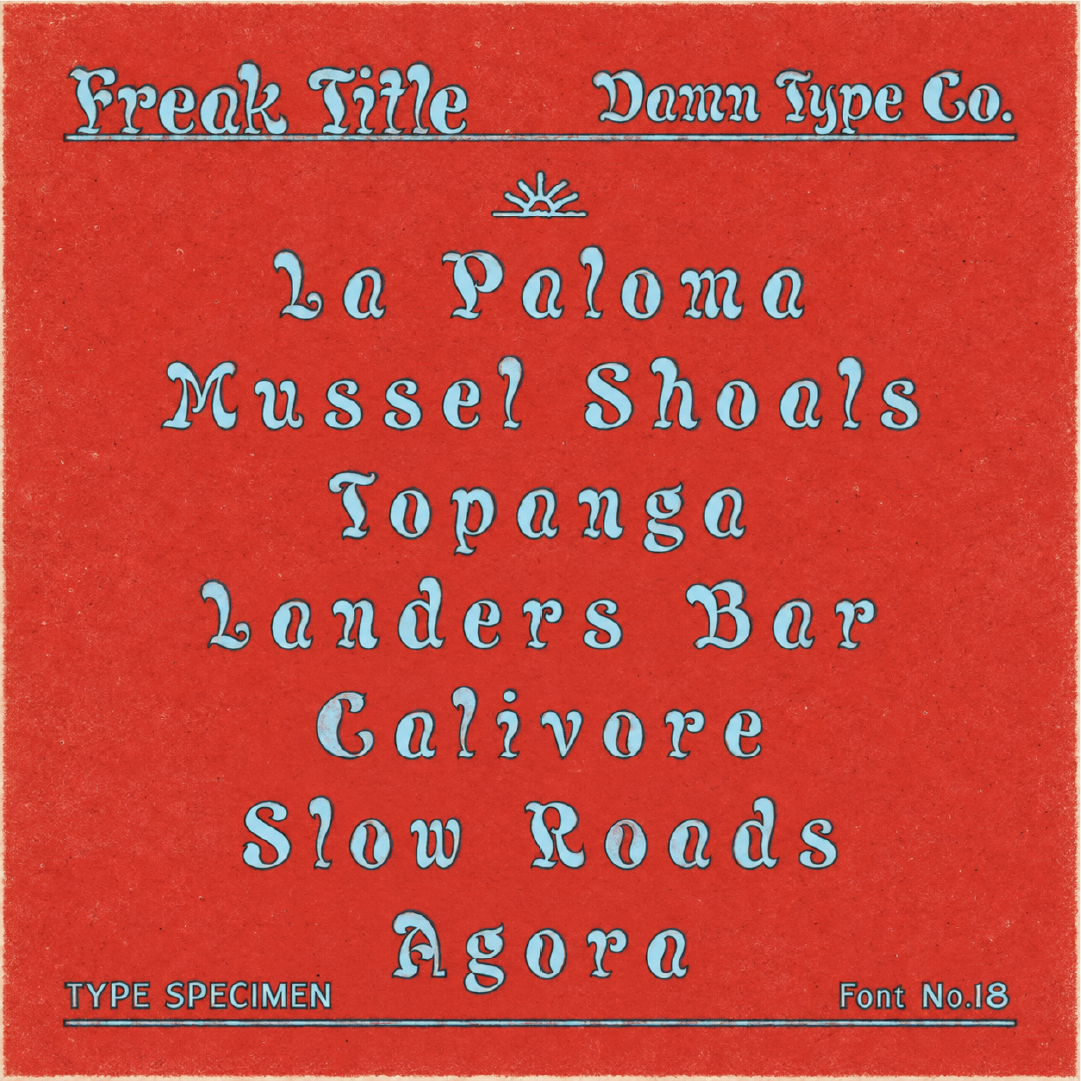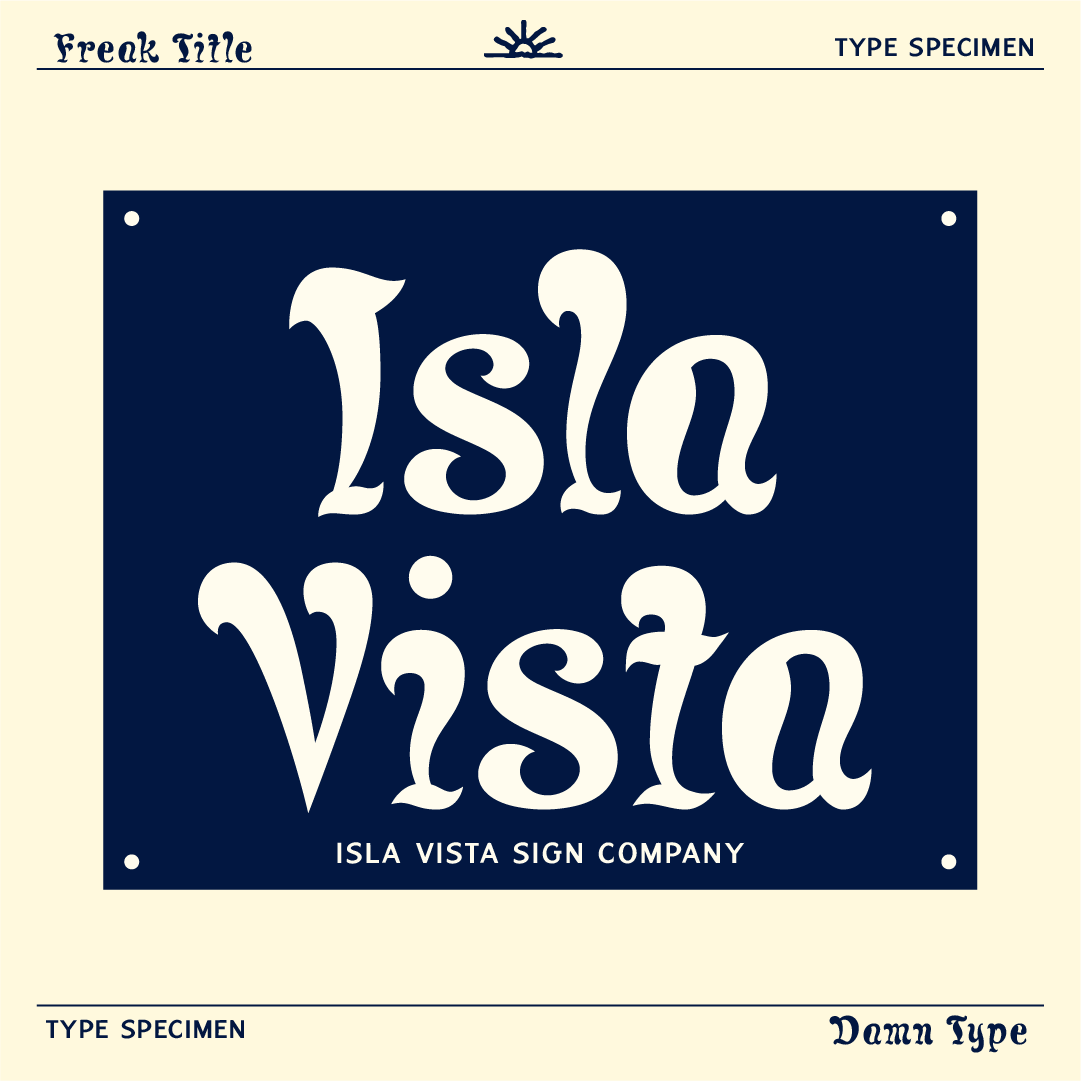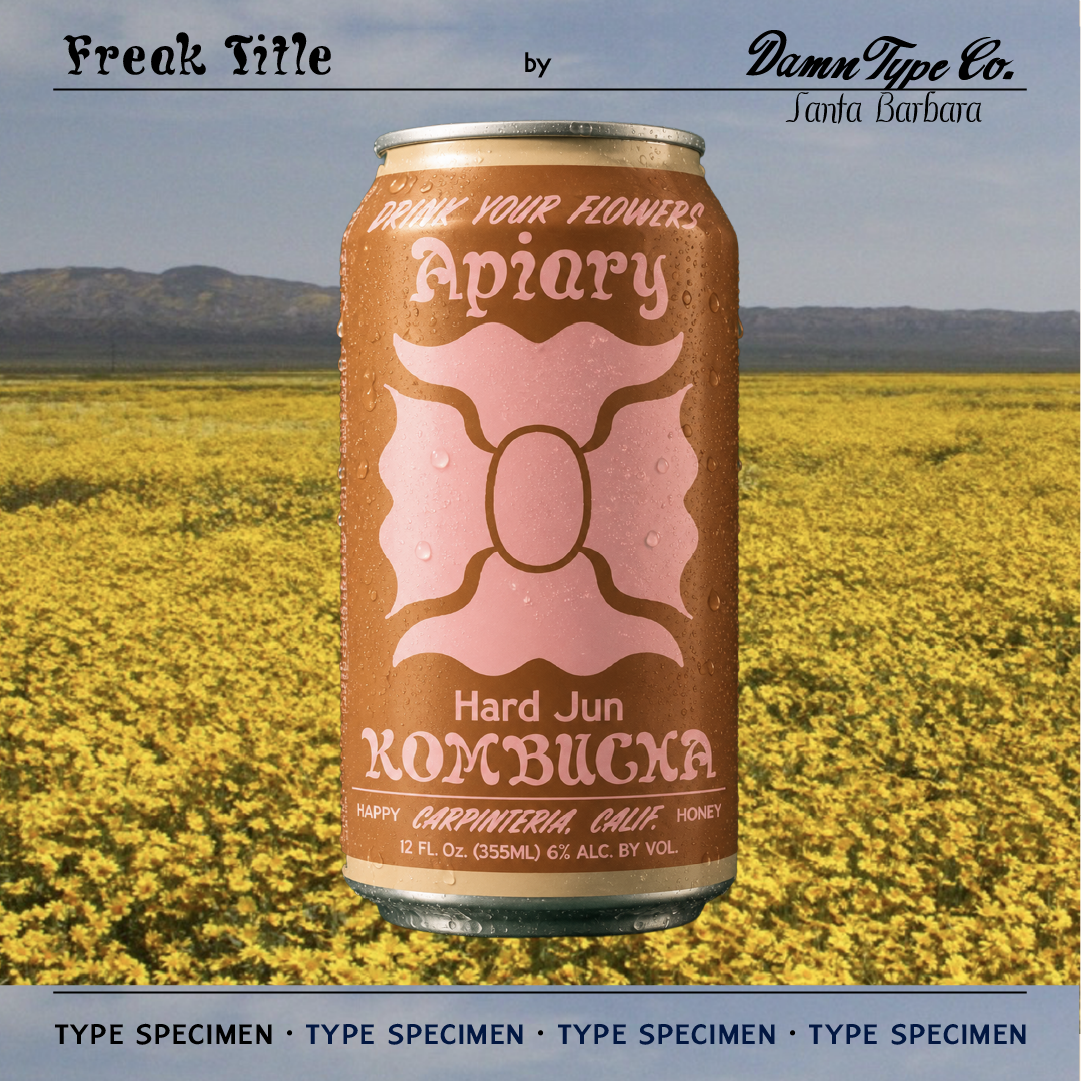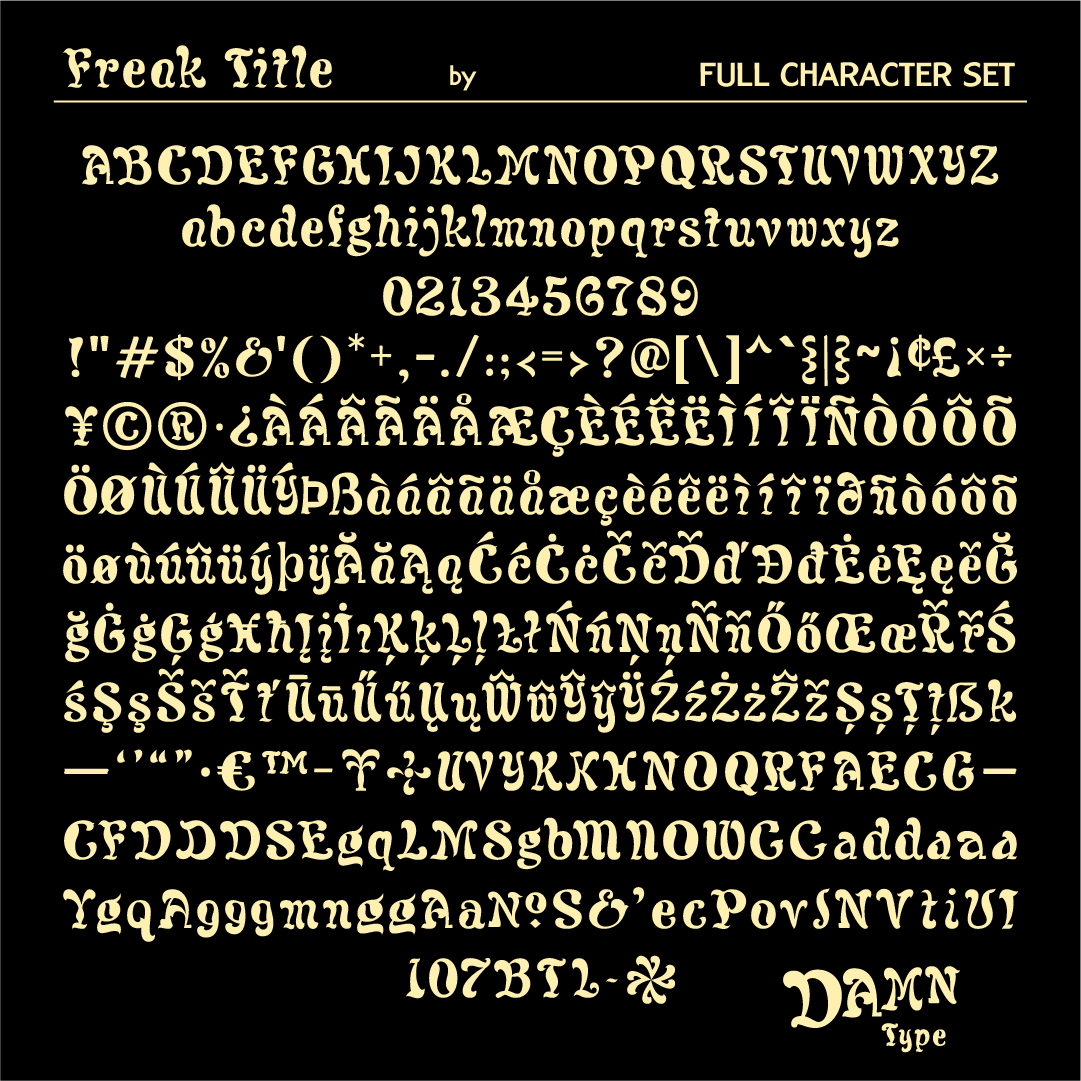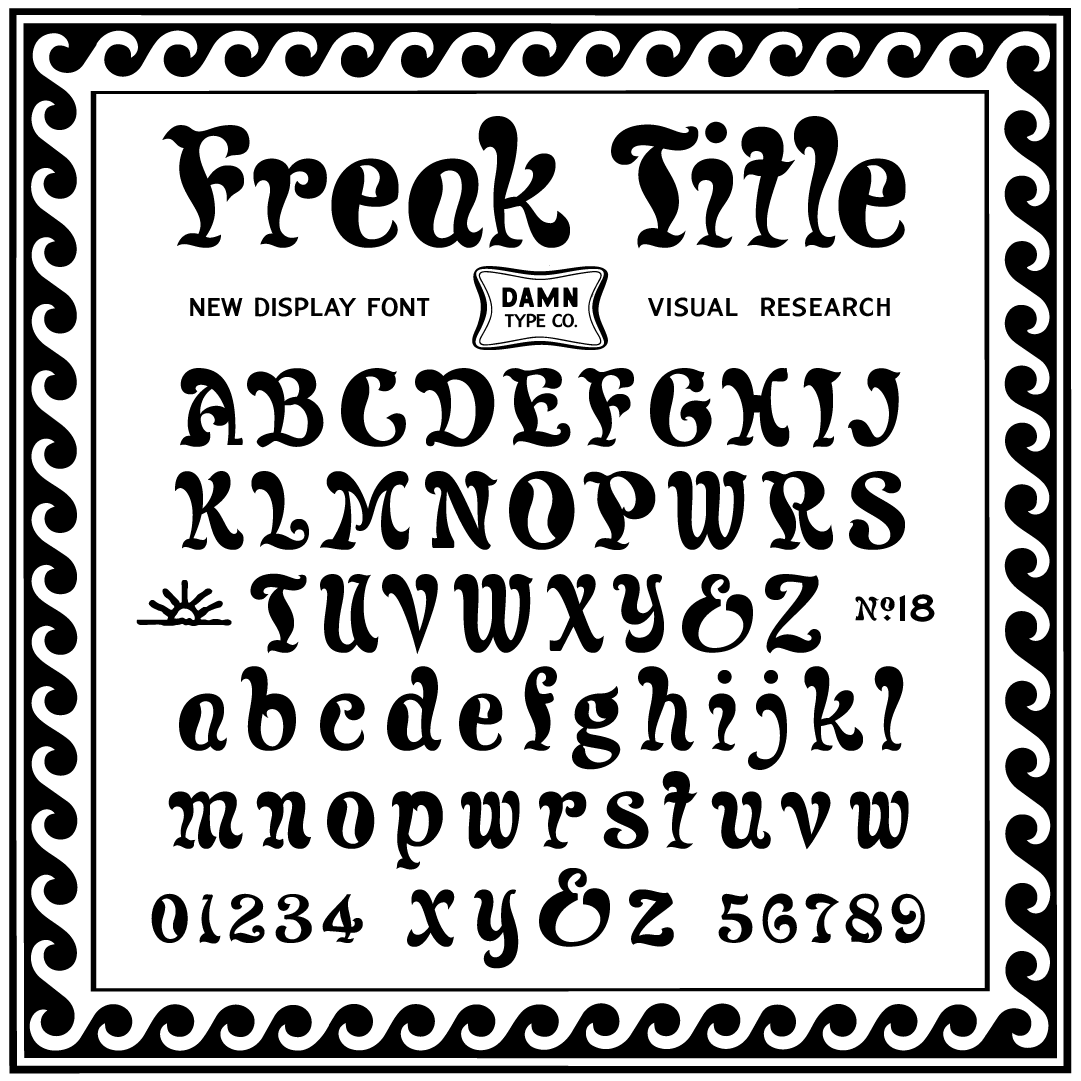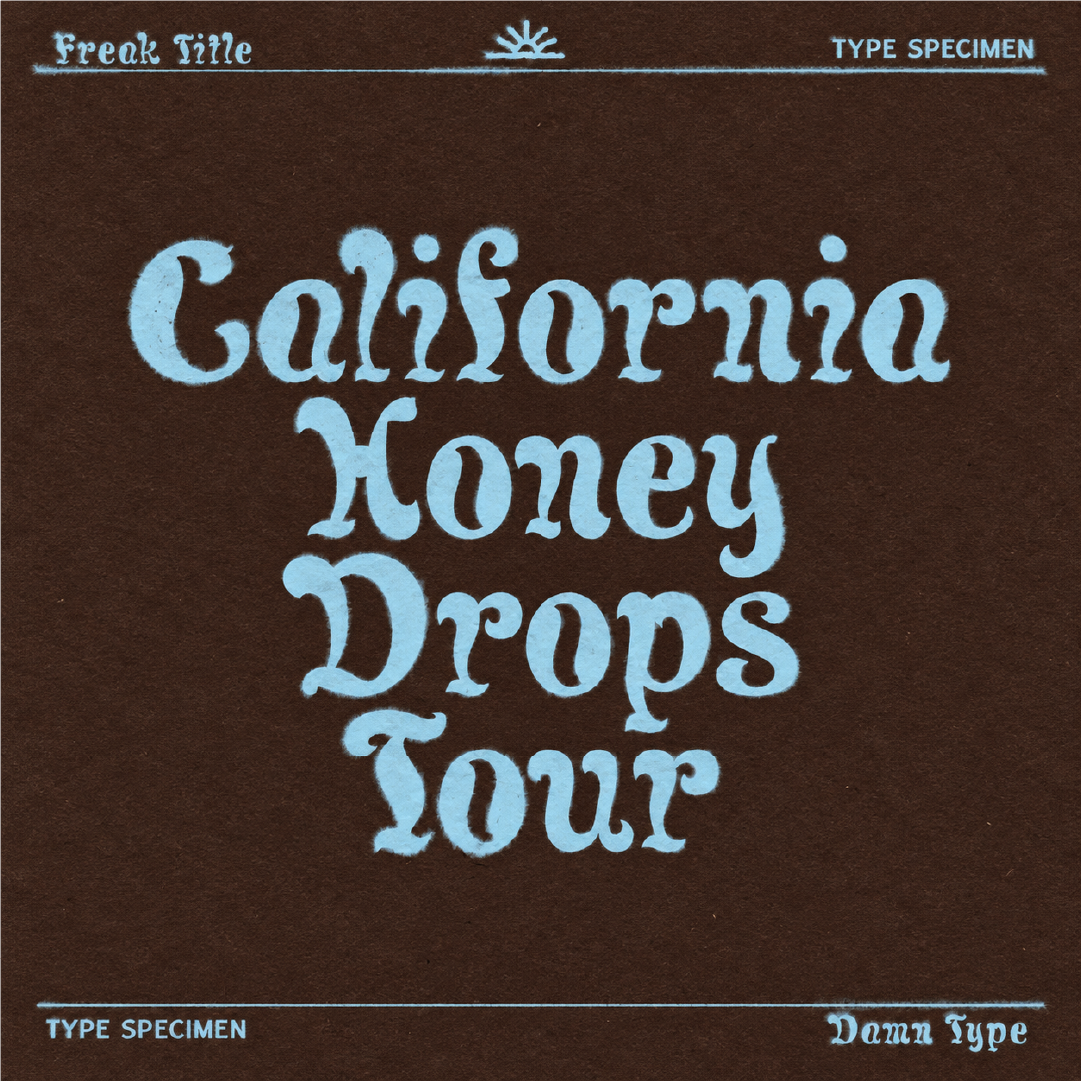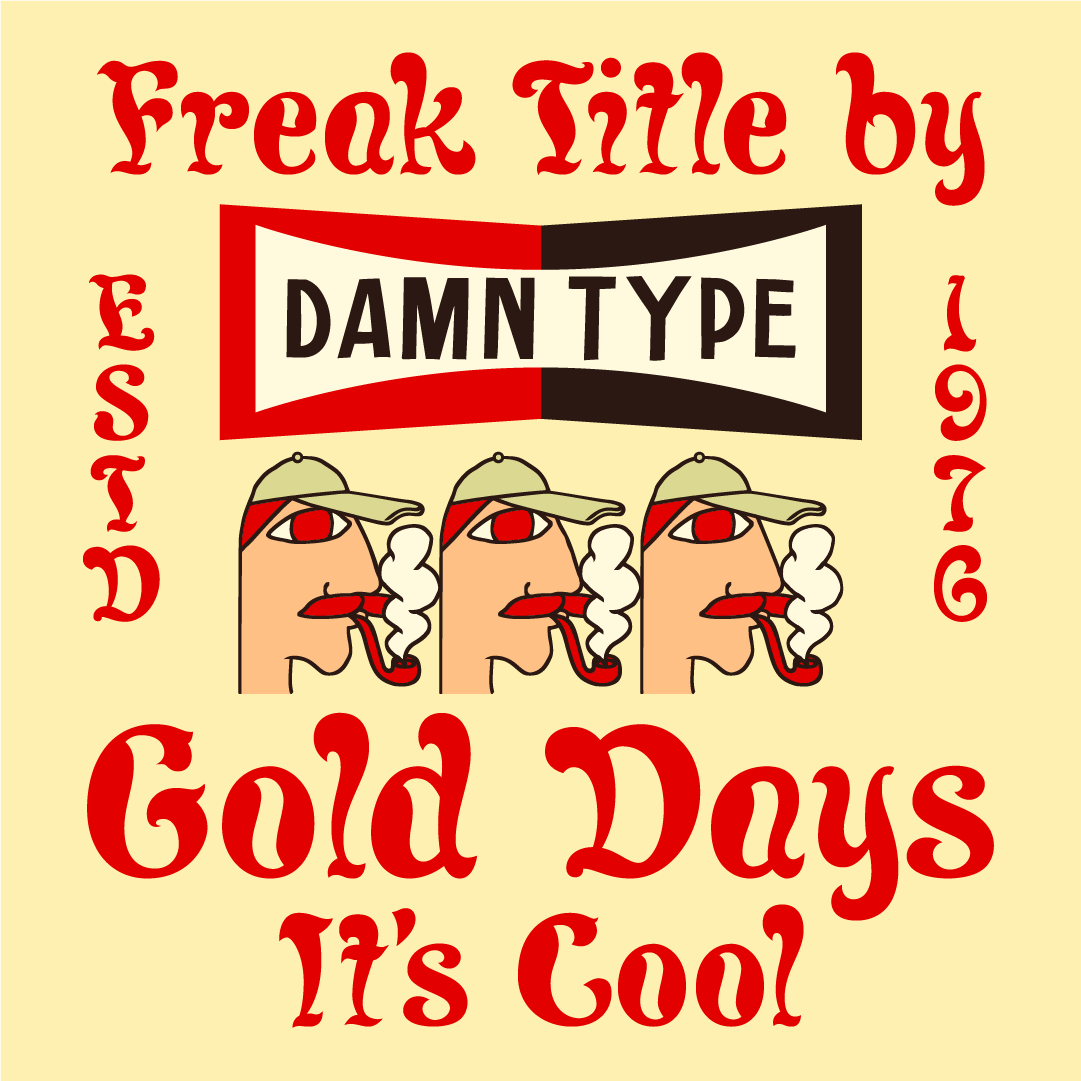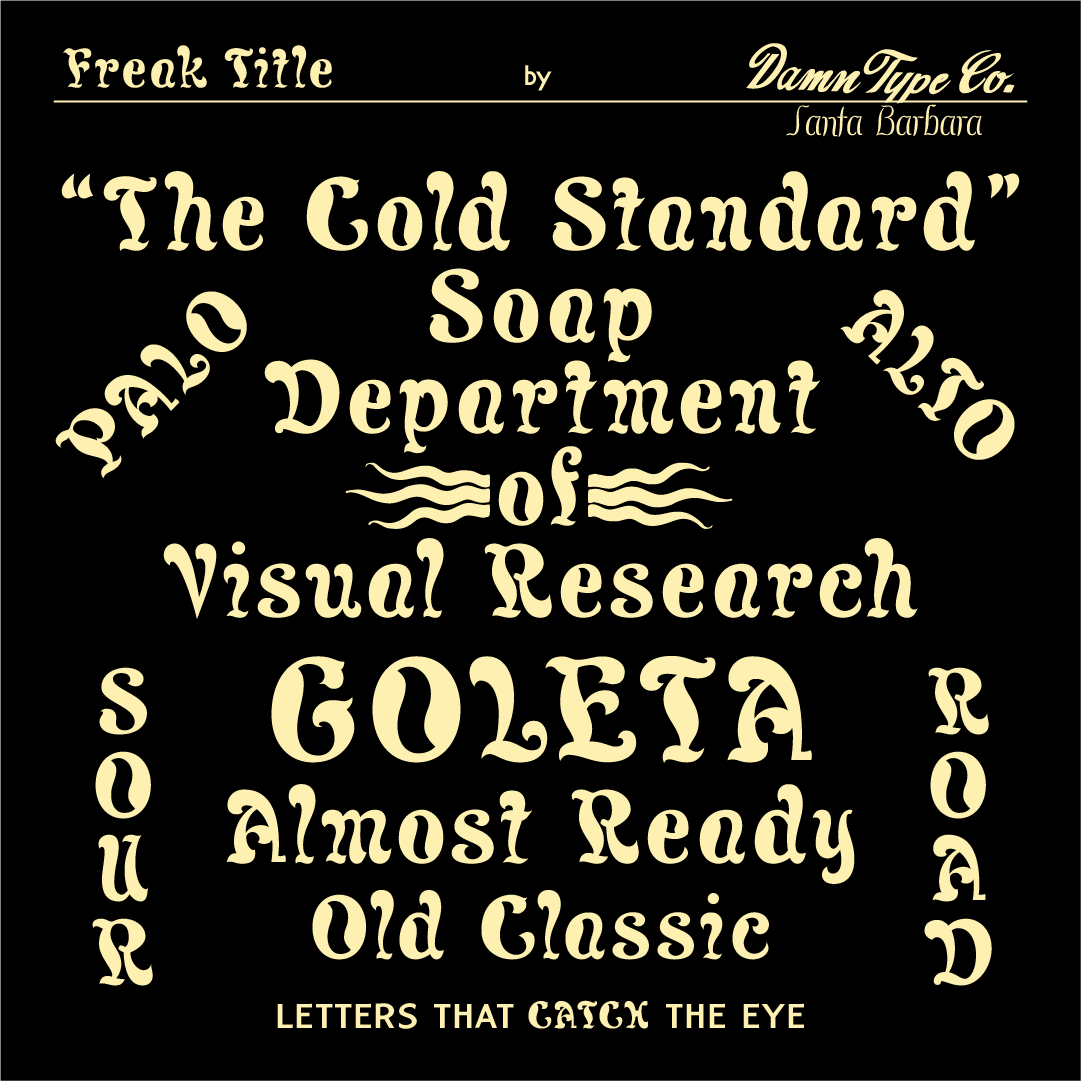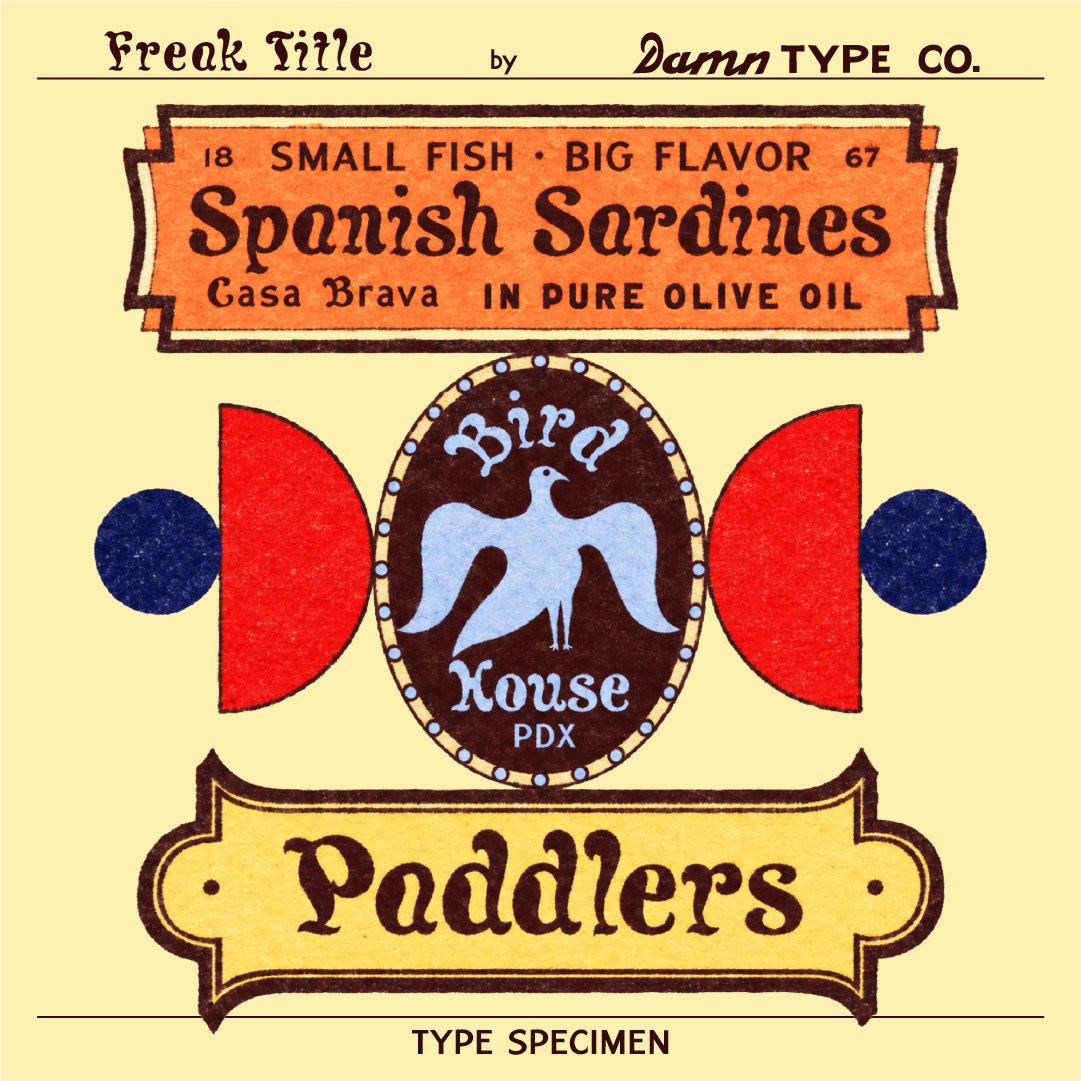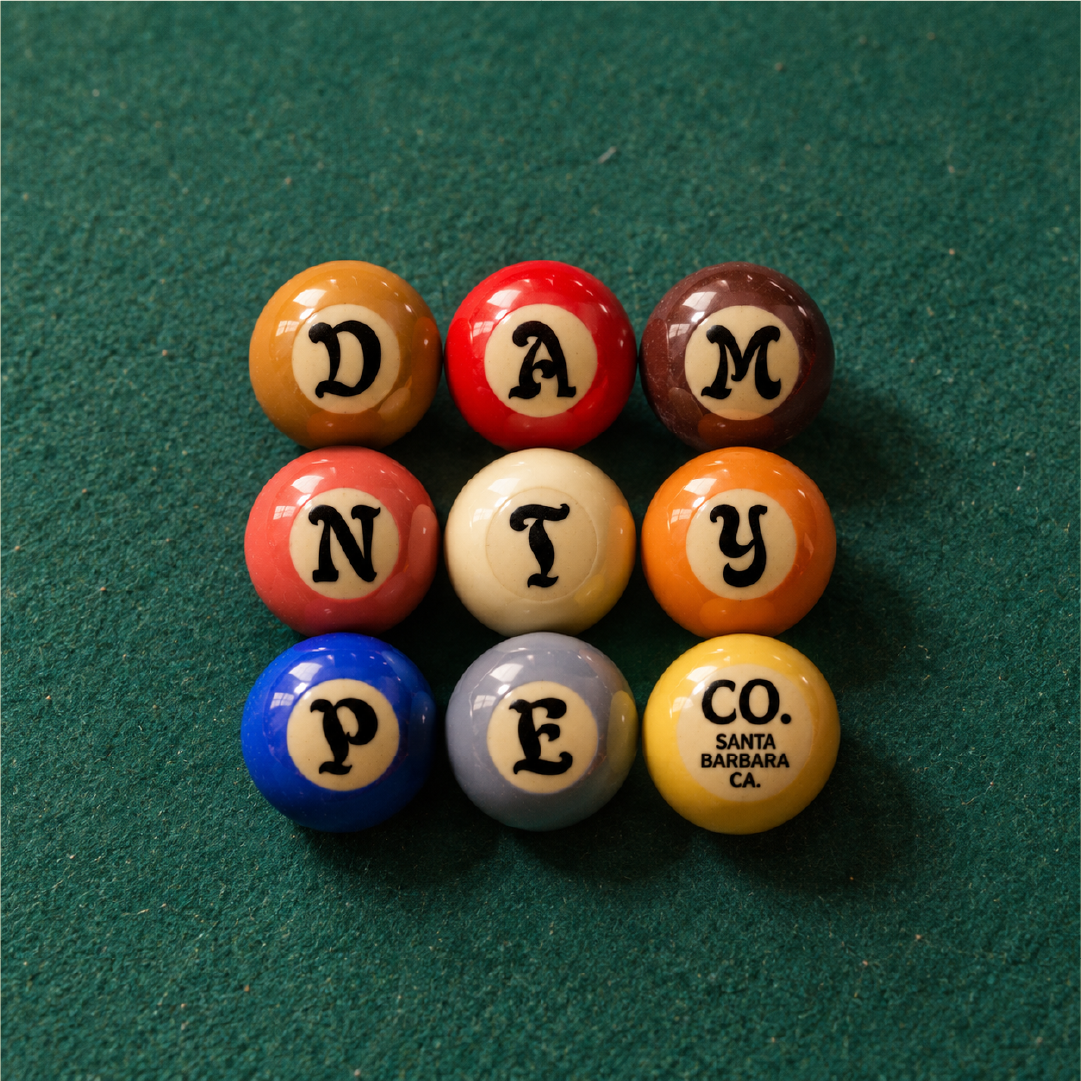
Freak Title is a digital revival of the “Freak Title” alphabet by Al. Imelli’, as seen in the 1922 The Book of Alphabets and Layouts. Originally shown as ‘Freak Title Nos. 102 and 103’, the letters first caught my eye for their strange mix of awkward elegance and funky personality.
I redrew and balanced the original forms, expanded the character set with numbers, symbols, letter alternates, and built them into a functional contemporary typeface while trying not to polish away what made them freaks in the first place.
These strange old letters are ready to get weird again!
Extended Latin support covering most Western, Central, Northern, and Southeastern European languages.